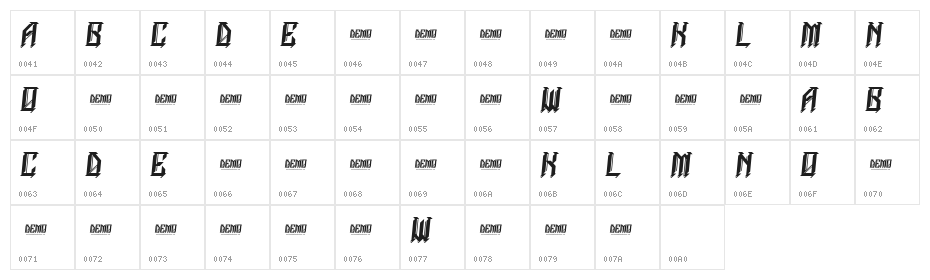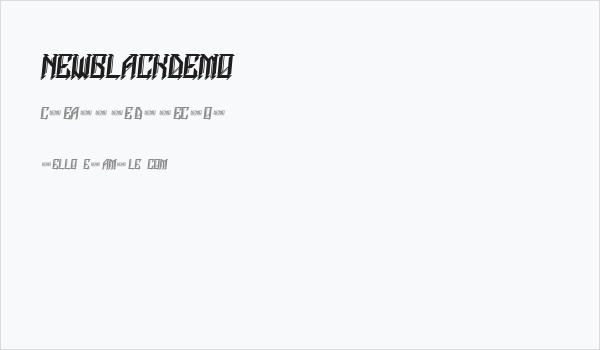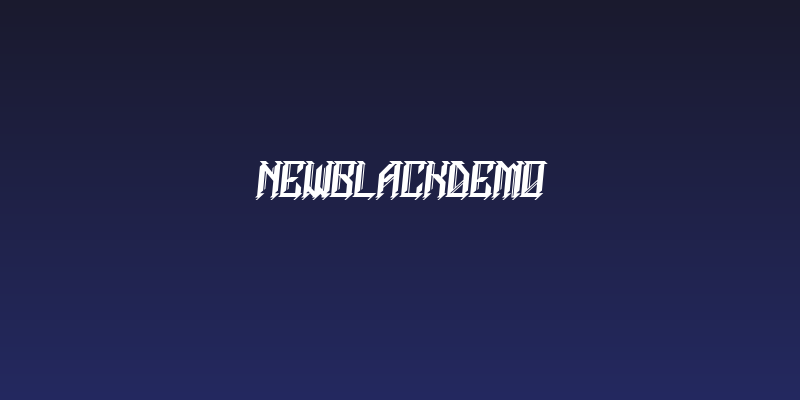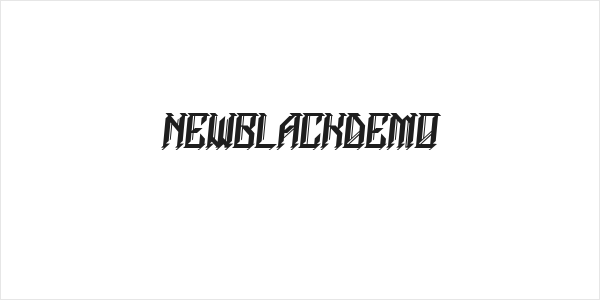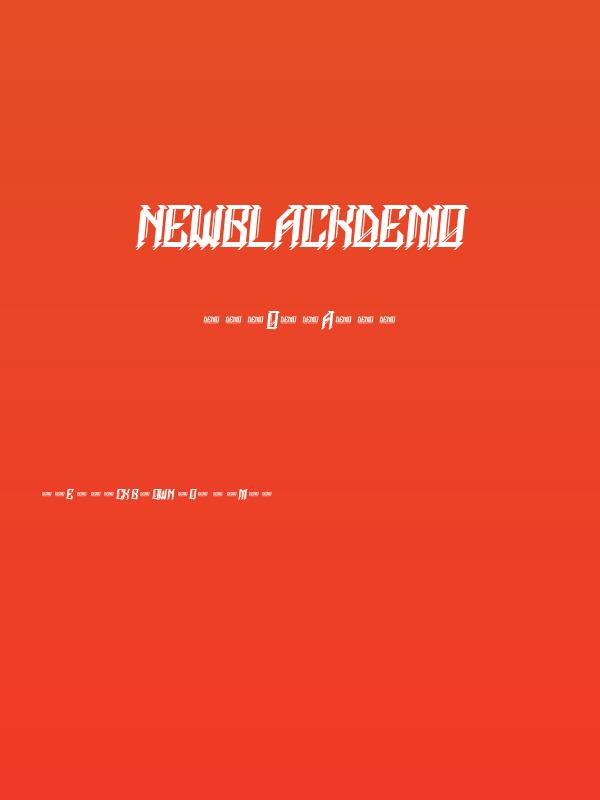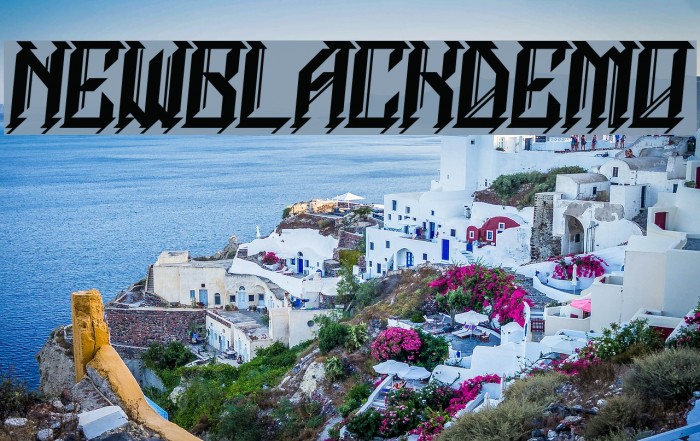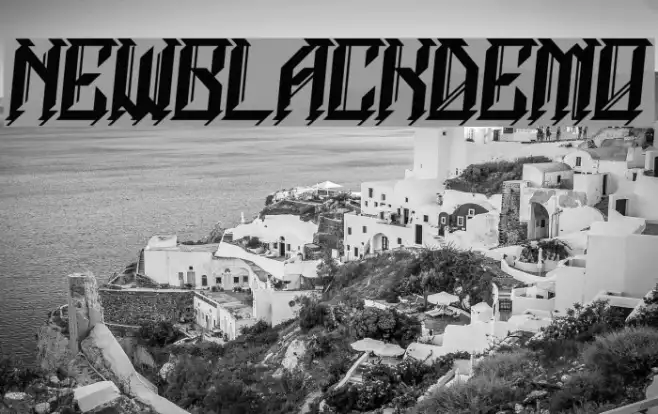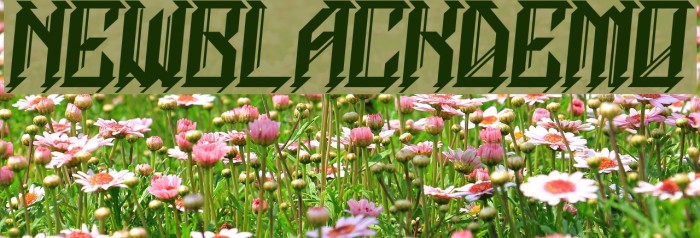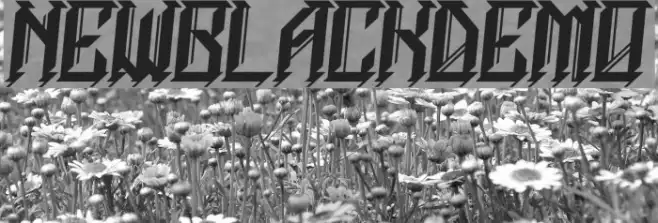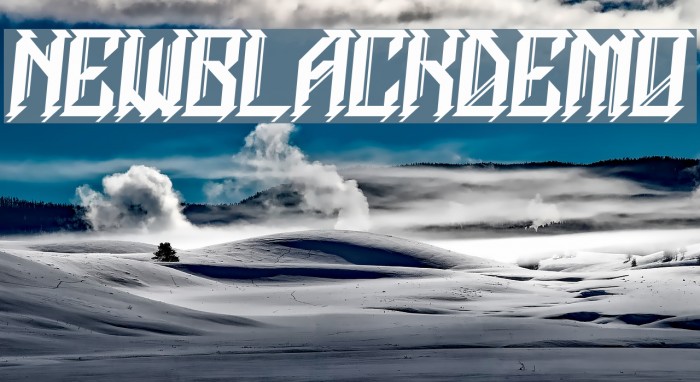
NEWBLACKDEMO Font
NEWBLACKDEMO Description
This font features a bold and dramatic style, reminiscent of traditional blackletter typefaces with a modern twist. The characters are sharply angular with pronounced serifs and a gothic flair, making them stand out with a strong visual impact. The uppercase letters are particularly striking, with elongated verticals and intricate detailing that evoke a sense of historical elegance. The lowercase letters maintain the same aesthetic, offering a cohesive look across different text sizes. This font is ideal for projects that require a touch of drama and sophistication, such as branding for luxury products, event posters, or editorial headlines.
| Overall Style | Gothic, Dramatic |
| Proposed Projects | Ideal for luxury branding, event posters, editorial headlines, and any project needing a dramatic flair. |